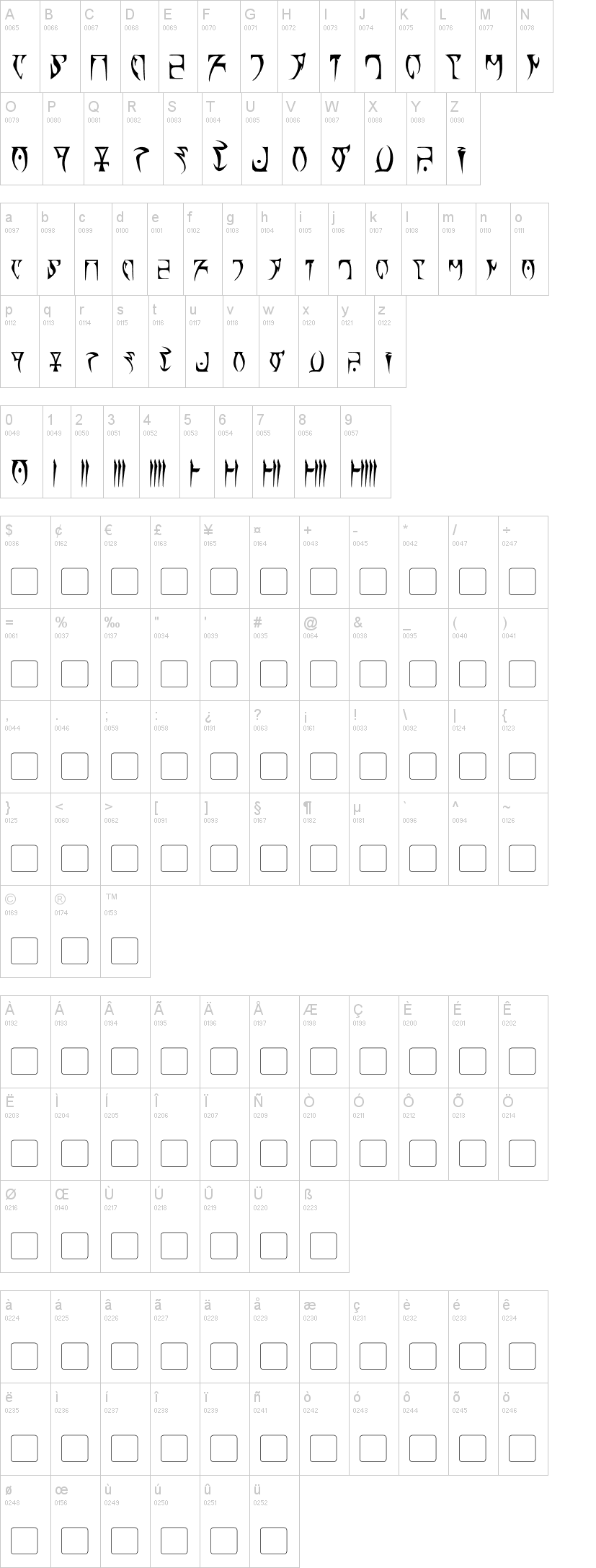
Daedra Italic.otfDaedra Bold.otfDaedra Bold Italic.otfNote of the authorDaedra is based on the demonic and occult signage and glyphs from Bethesda Softworks Elder Scrolls series of games, such as Daggerfall, Oblivion, and Skyrim. Includes regular alphabet and unofficial fandom numbers. Includes regular, bold, italic, and bold-italic weights.